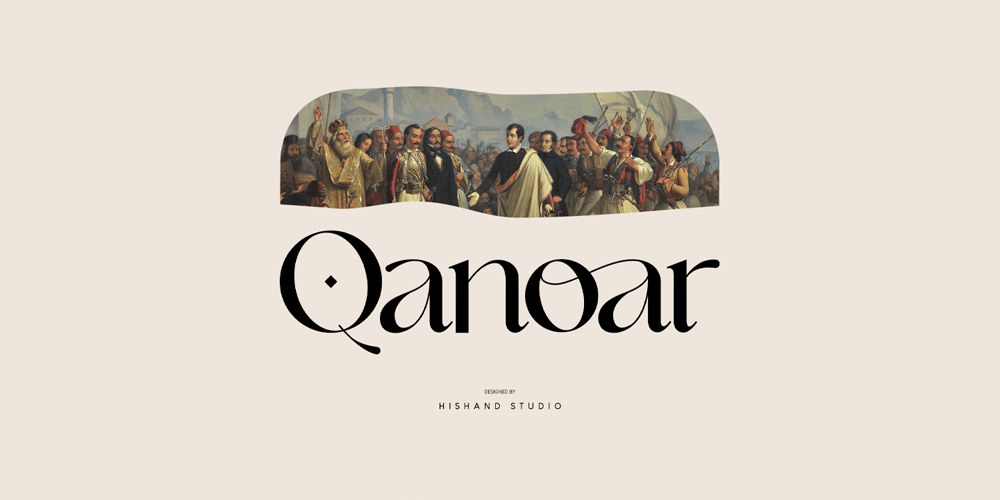
Qanoar Font Family was designed by Putu Dody Permana and published by Hishand Studio. Qanoar contains 3 styles and family package options. Classy look font of Qanoar. a modern serif font family that drawn inspiration from elegant, modern, but classic at the same time. just have a look at this beautiful handcrafted serif typeface. Use it for logo, design, branding, and many more.Complete with ligatures alternates regular italic icon kerning multilingual support